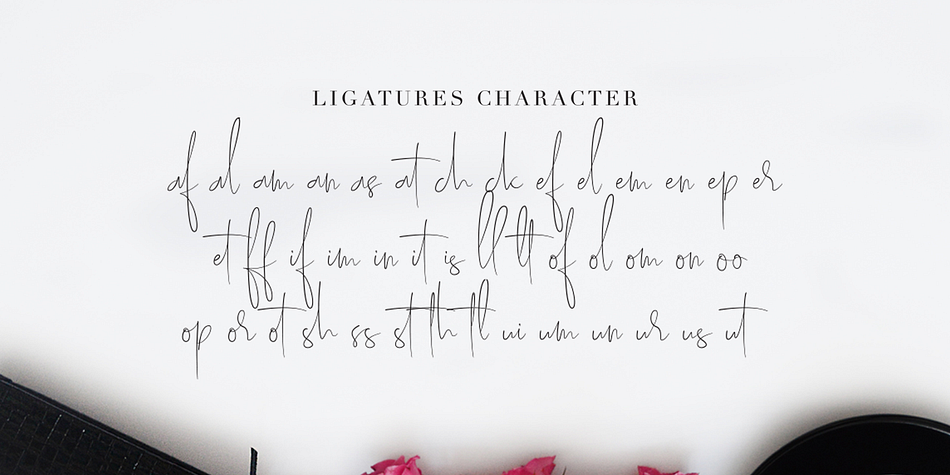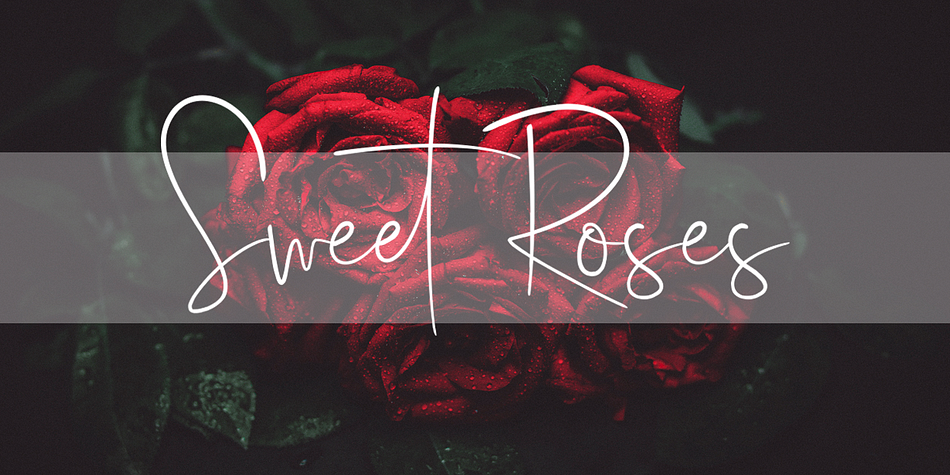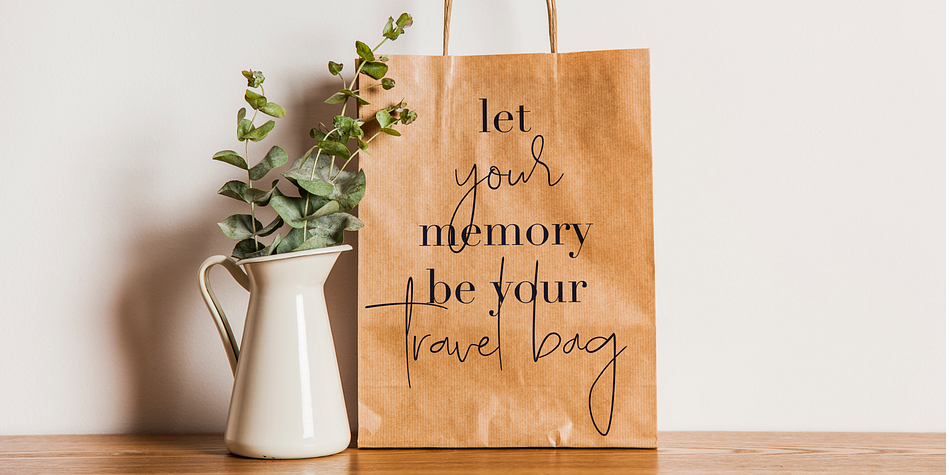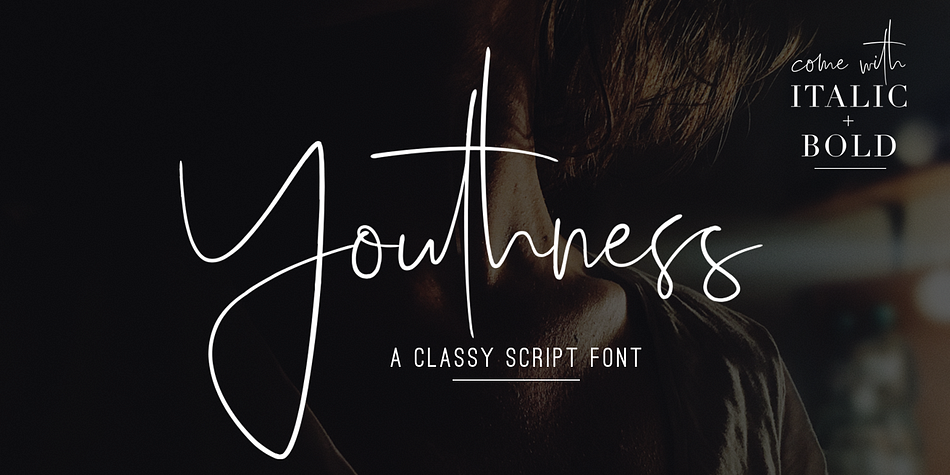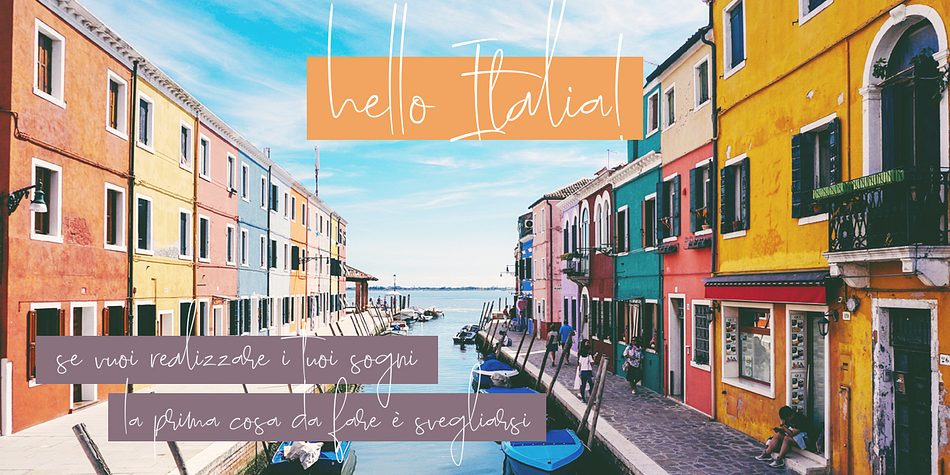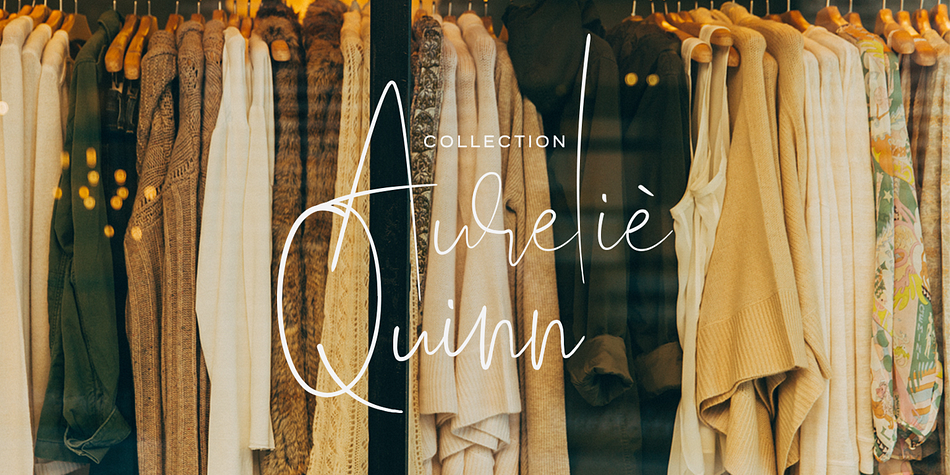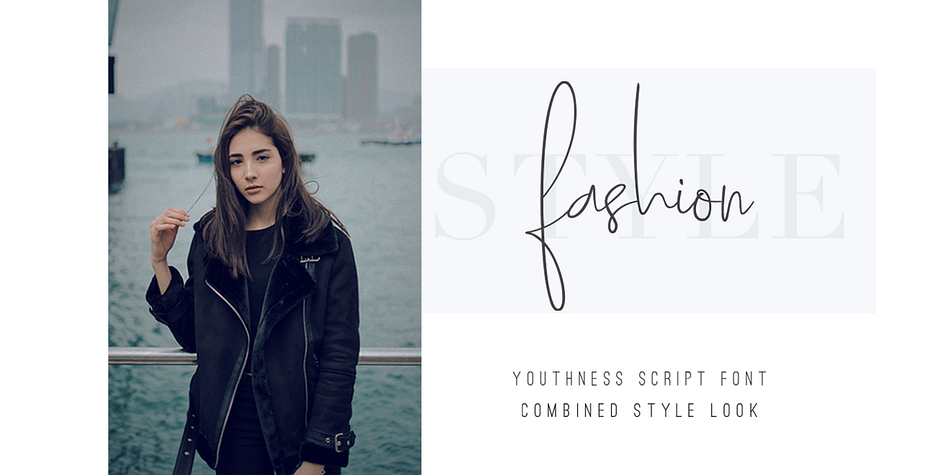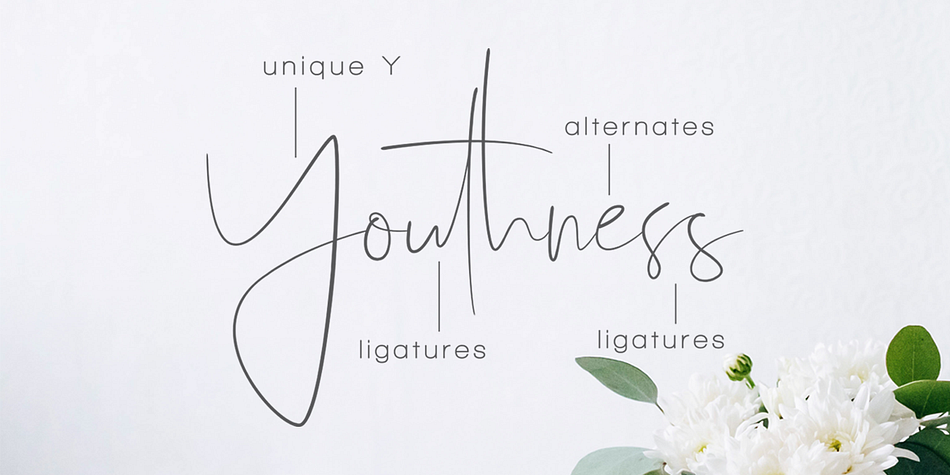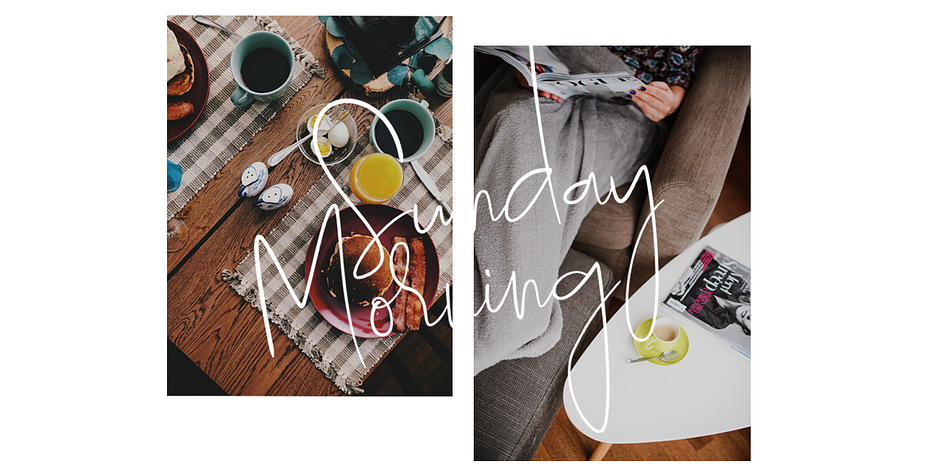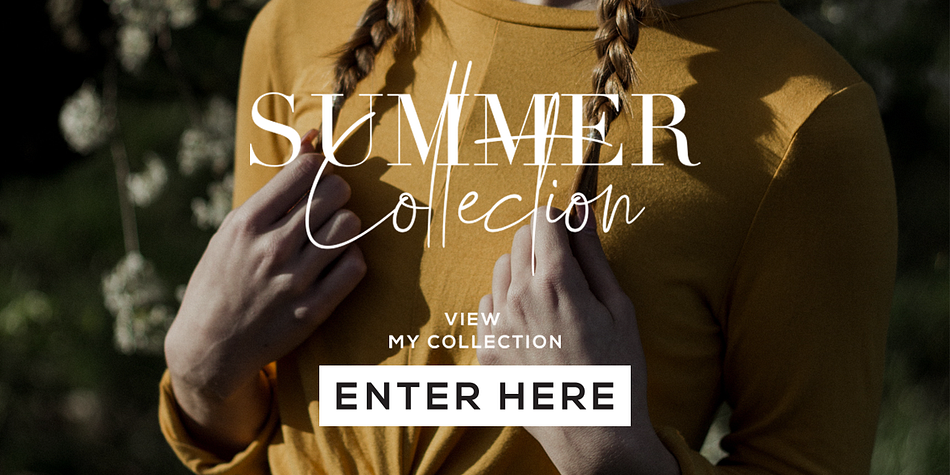
Youthness is a hand drawn, modern calligraphy and script font family. This typeface has four styles and was published by Dharmas Studio.
Youthness Script is modern feminine font, every single letters have been carefully crafted to make your text looks beautiful. With modern script style this font will perfect for many different project ex: photography, watermark, quotes, blog header, poster, wedding, branding, logo, fashion, apparel, letter, invitation, stationery, etc.
Youthness Script have 3 family, Regular, Italic and Bold, also have 26 alternate ( a-z ) lowercase, and multilingual too
Ligature & alternate glyph: af al am an as at ch ck ef el em en ep er et ff if im in it is ll lt of ol om on oo op or ot sh ss st th tl ui um un ur us ut